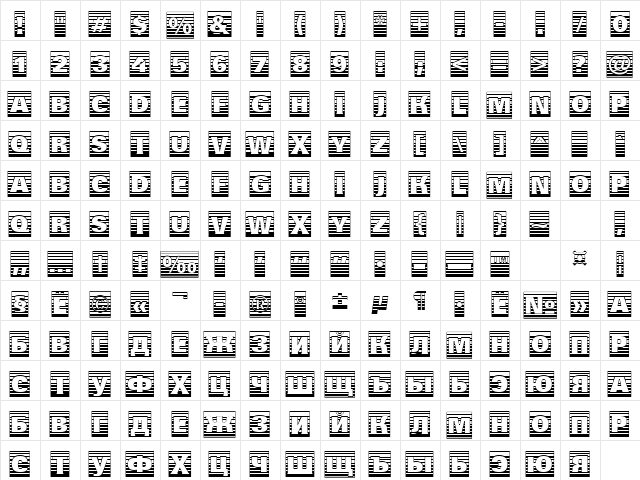
a_GroticTtlCmGdStrHv Regular
Design Context for a_GroticTtlCmGdStrHv Typeface
a_GroticTtlCmGdStrHv is a composed and adaptable typeface that performs quietly and consistently across a wide range of design contexts.